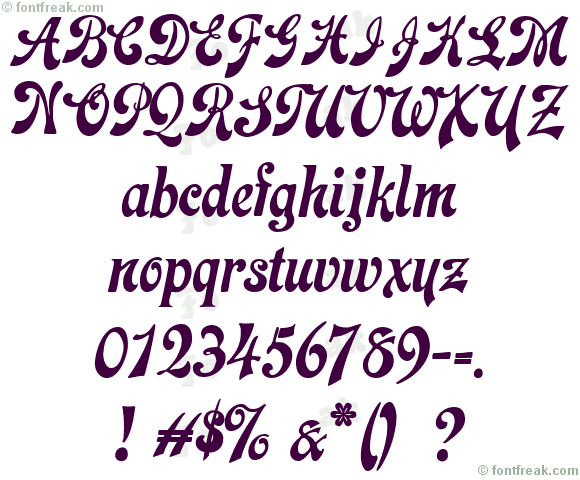
Laclede CAT
The Laclede CAT font, designed by Peter Wiegel, embodies a unique decorative style that seamlessly blends elegance with a touch of playfulness. This script font showcases flowing letterforms that exude charm and personality, making it a delightful choice for various creative projects. The strokes are medium to bold in weight, presenting a balanced contrast that enhances readability while maintaining an artistic flair. The spacing between letters is well-crafted, allowing for a harmonious flow that captures attention without overwhelming the viewer. Decorative elements, such as the whimsical curves and flourishes, contribute to its distinctive character, making it stand out in any design.
Ideal use cases for the Laclede CAT font include wedding invitations, where its romantic aesthetic can elevate the overall design; restaurant menus, providing a touch of sophistication that entices diners; greeting cards, adding a personal and warm touch to messages; and event flyers, where its eye-catching style can draw in attendees. Graphic designers and small business owners will find this font particularly useful, as it can enhance branding efforts and create memorable visual identities. Additionally, content creators looking to add a unique flair to their online materials will appreciate the font's versatility.